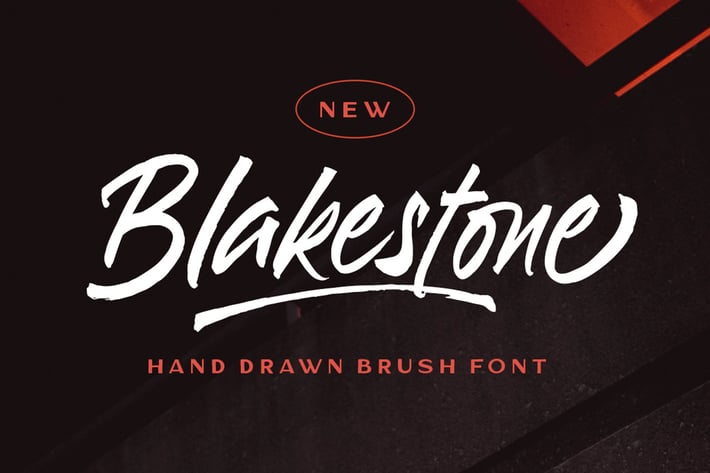
Blakestone - Hand drawn Brush font
Introducing, Blakestone - a hand drawn brush script which is purposely made for headline, display or logotype, and signature. This type of font perfectly made to be applied especially in logo, and the other various formal forms such as invitations, labels, logos, magazines, books, greeting / wedding cards, packaging, fashion, make up, stationery, novels, labels or any type of advertising purpose.
- uppercase & lowercase
- numbers and punctuation
- multilingual
- alternates & ligatures